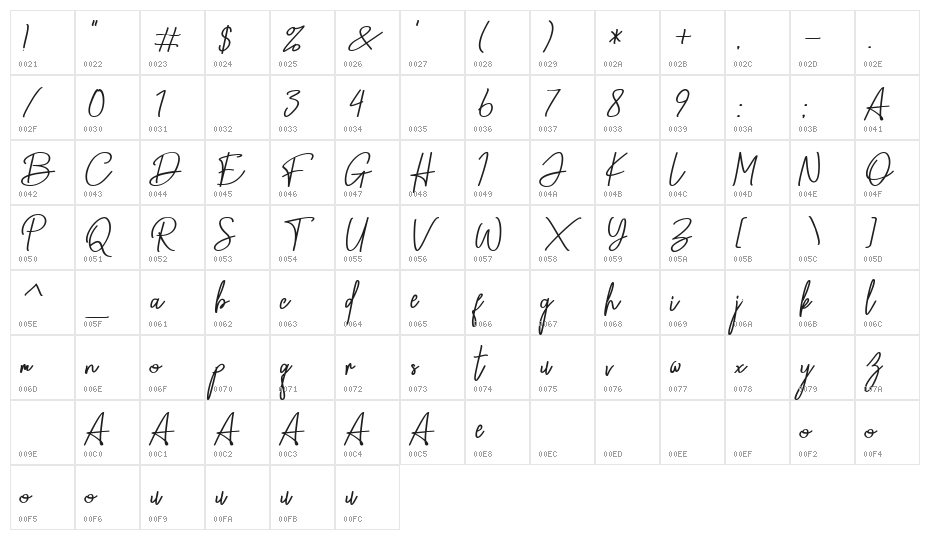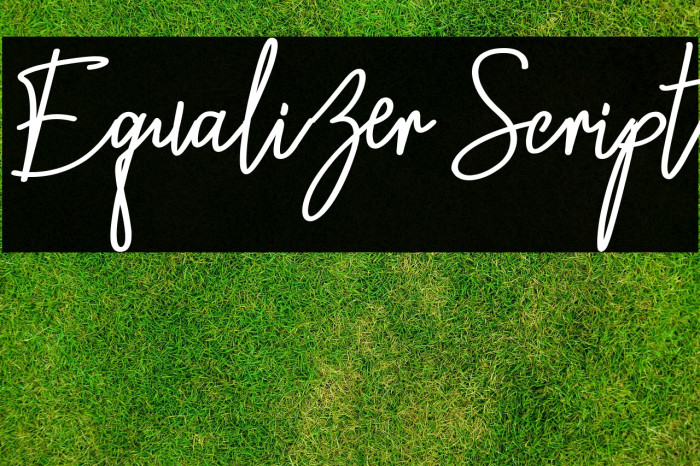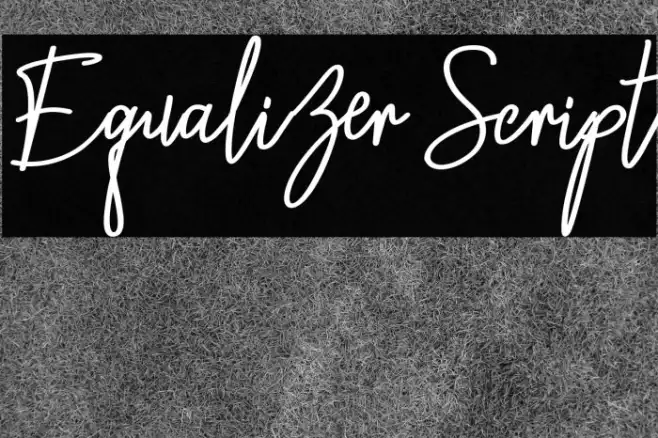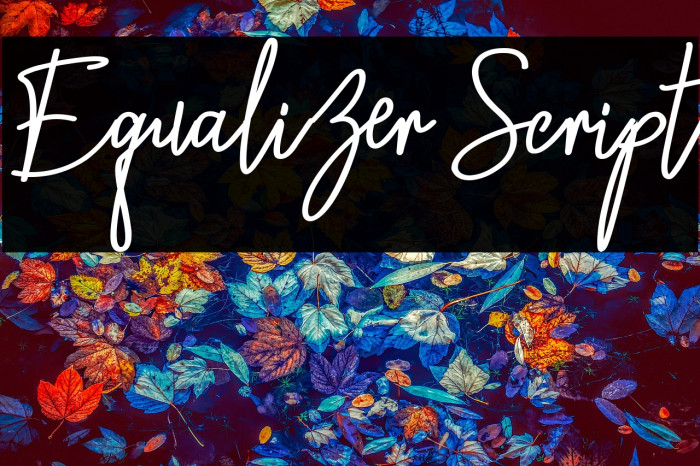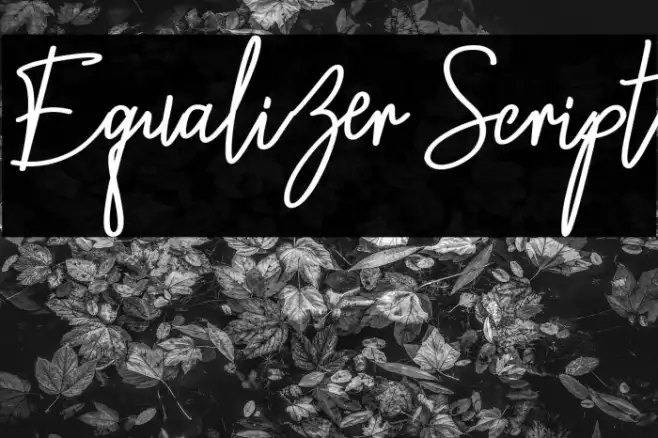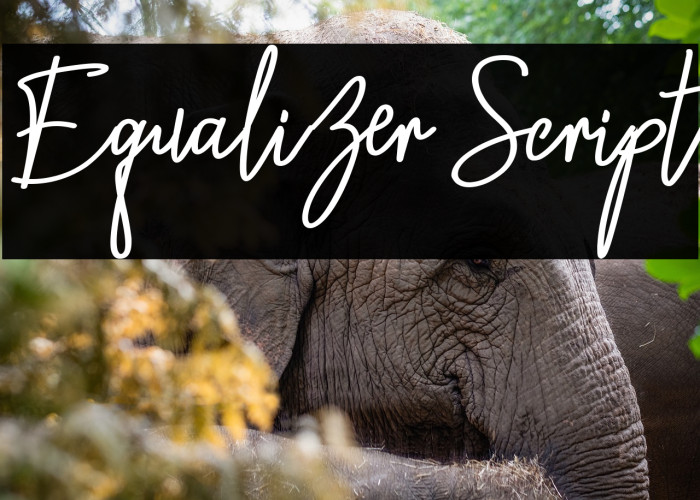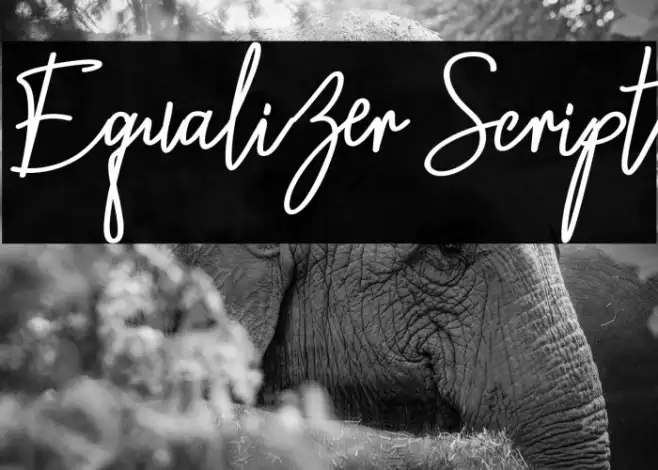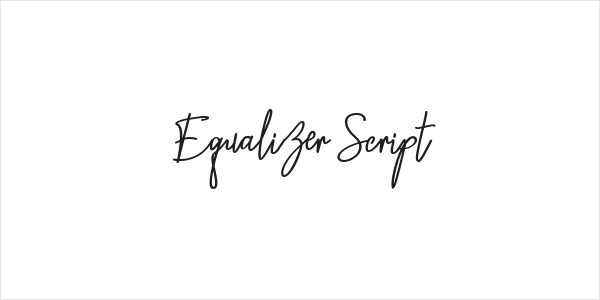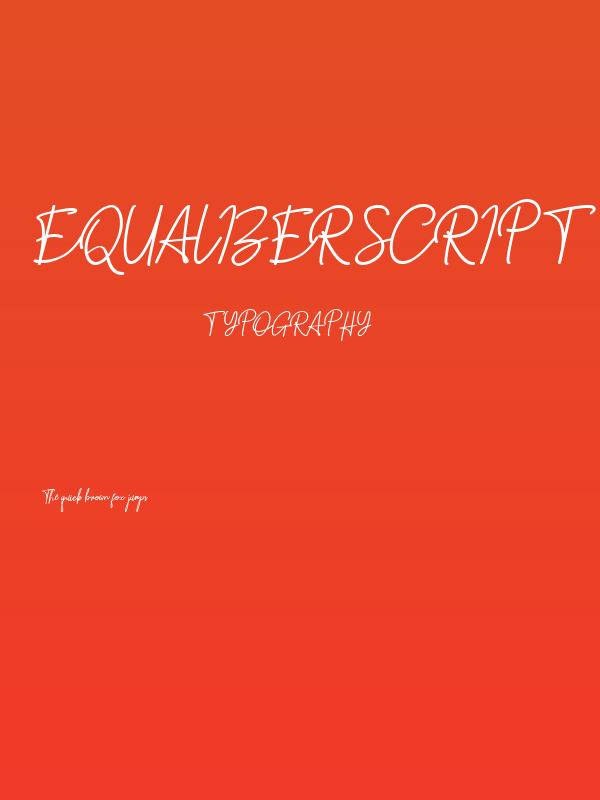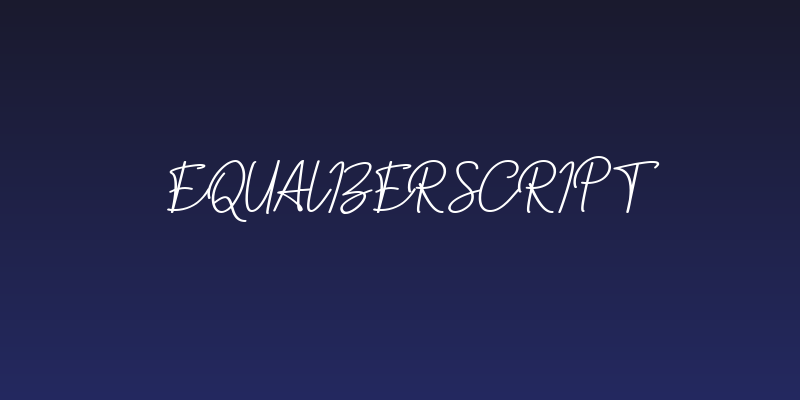
Equalizer Script Font
Equalizer Script Description
This font features a lively and dynamic script style, characterized by its fluid, cursive strokes that mimic natural handwriting. The uppercase letters are tall and elegant, with a slight slant that adds a sense of motion and energy. Lowercase letters are connected, enhancing the handwritten feel, and they maintain a consistent flow throughout. The numerals are distinct and easily readable, while the special characters complement the overall style with their playful curves. This font exudes a sense of creativity and personal touch, making it ideal for projects that require a humanistic and approachable aesthetic.